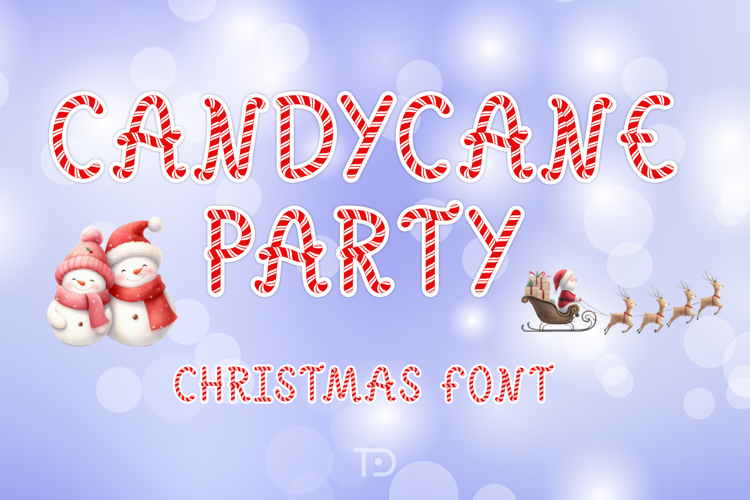
Candycane Party is a fun and festive display font. It will look fantastic on all your Christmas-themed designs including t-shirt designs, mug designs, digital designs, crafts, cards, and any projects!